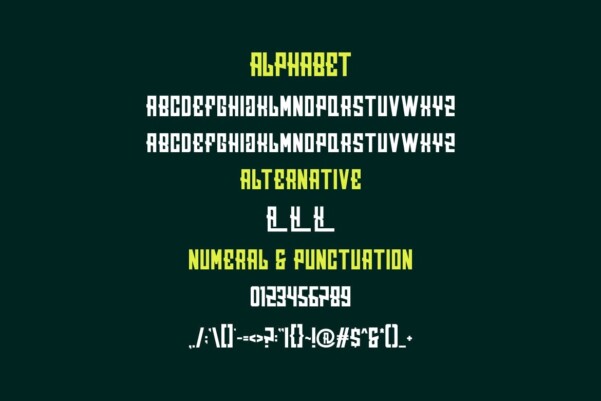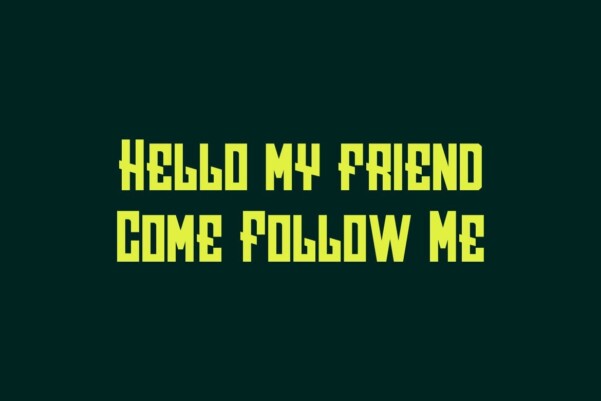
Speed Raceng Font
Speed Raceng Font, is a modern and simple font ideal for displaying headlines, Logos, branding, magazines, product packaging and invitations. Speed ​​Racengs feature clean lines and gentle curves that give any project an extra touch of class